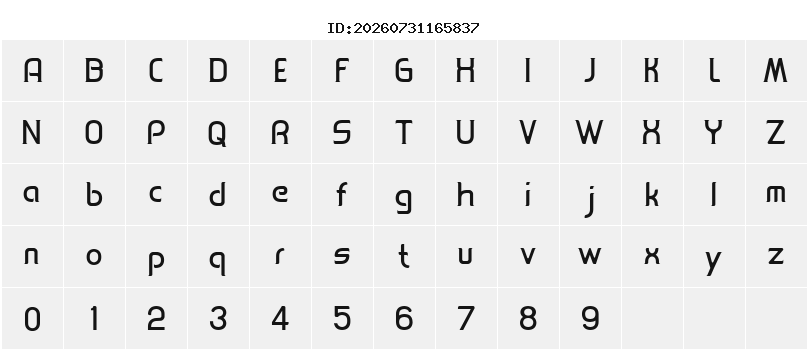
• Designer: Faridul Haque
Leoscar Serif.ttf is a modern, elegant sans-serif font designed for ultimate readability and visual harmony. Perfect for branding, headlines, web design, and print materials.